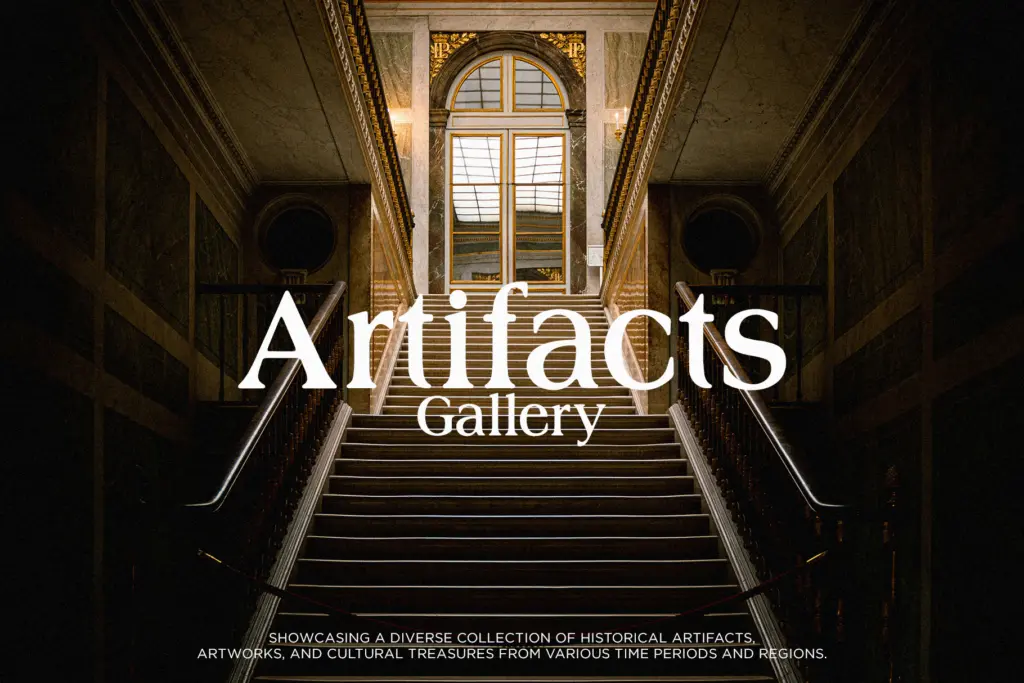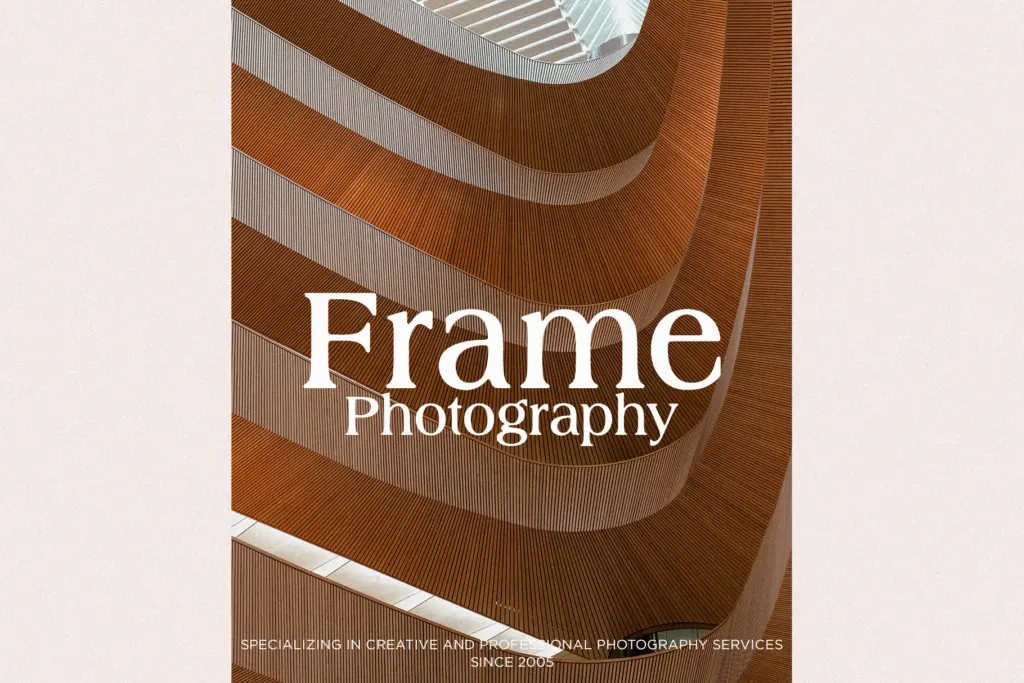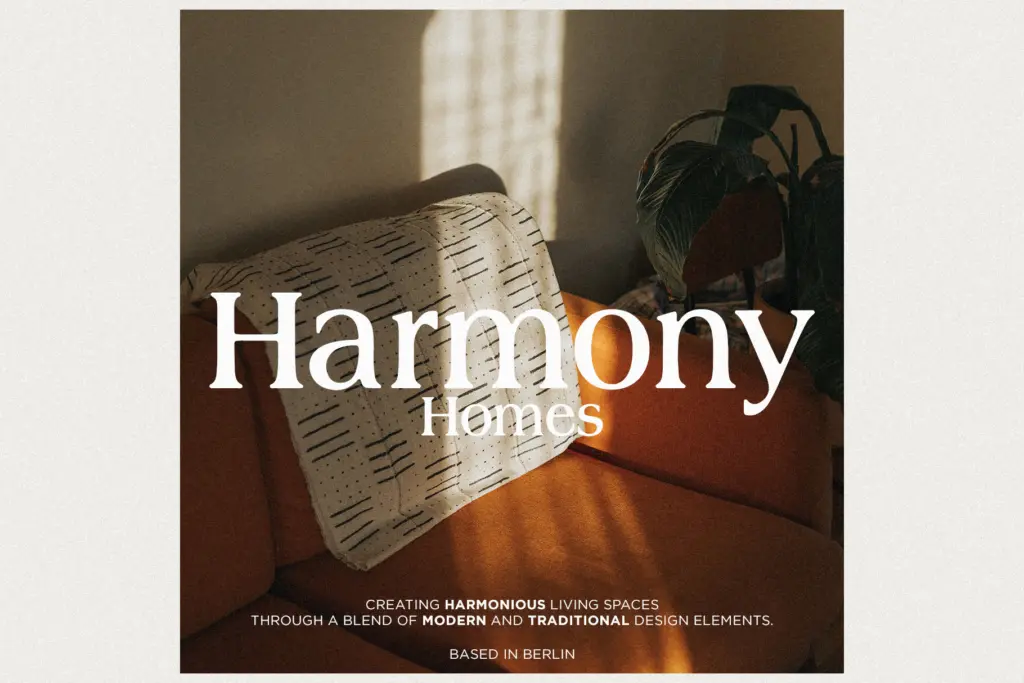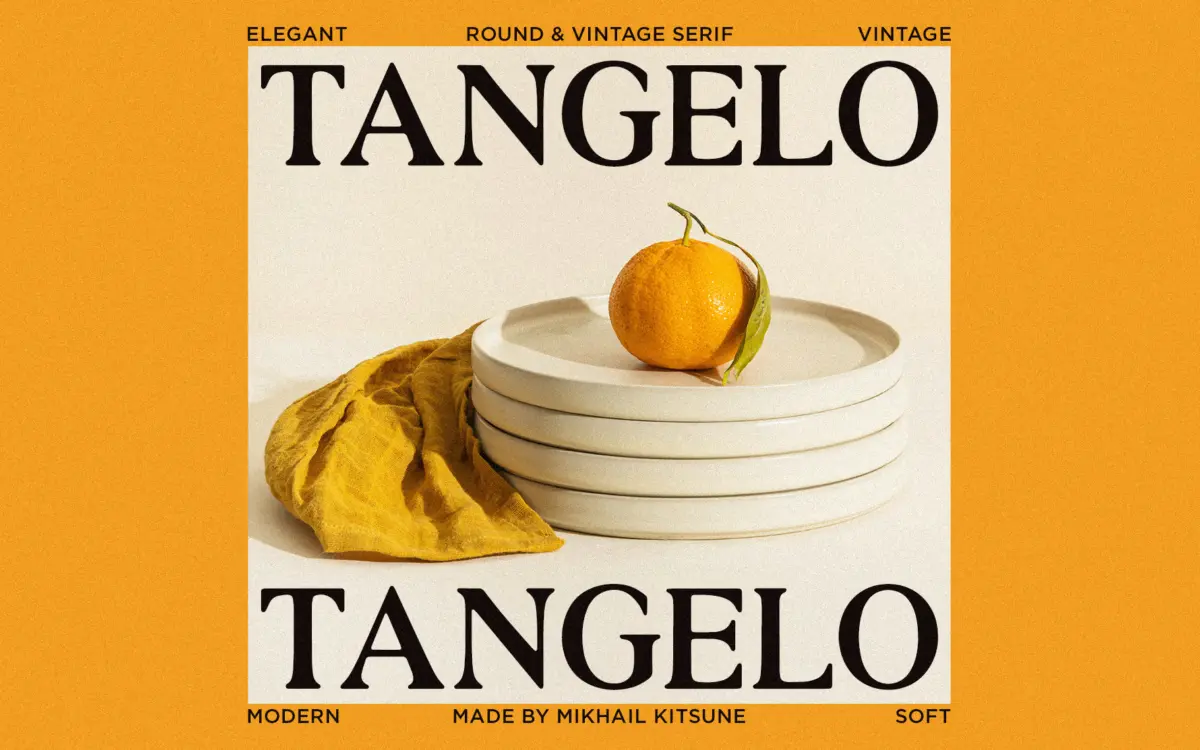
Tangelo sits in that familiar territory of rounded, softened serifs that designers reach for when they want something that reads as old but not fussy. The serifs are stubby rather than bracketed in the traditional sense, and the terminals curl inward with a bit of ball weight, which gives the letterforms a friendly, almost hand-carved feel. It’s the kind of serif that looks at home stamped on a crate or lettered on a badge rather than set in a flowing paragraph.
The contrast is low to moderate, and the strokes stay fairly even in width, which keeps the face from feeling delicate. What stands out is the rounding at the joins — bowls, arms and serif ends all seem to have had their corners sanded down, so the overall texture is soft even where the structure underneath is fairly conventional. It’s a vintage reference filtered through a slightly cartoonish hand, closer to packaging lettering from mid-century advertising than to a book serif.
The set covers uppercase and lowercase letters, numerals, punctuation and symbols, with multilingual support extending its reach beyond a single language market. Basic ligatures are included, which help smooth over a few of the more awkward letter collisions that round serifs tend to produce, particularly around ascenders and descenders that want to bump into neighbouring bowls. With over 250 glyphs total, there’s enough here to cover most short-form Latin-script jobs without needing to hunt for missing characters.
What isn’t present is any indication of multiple weights or an italic companion — this appears to be a single-style release, which matters for how you plan to use it. There’s also no stylistic alternate set mentioned, so what you see in the specimen is largely what you get across the alphabet: consistent, but without much room to vary the texture within a single piece of design.
Tangelo is built for short bursts of text rather than continuous reading. Logotypes, badge lockups, product labels and packaging headlines are the obvious targets, and the rounded serif treatment will read well on anything that wants a nostalgic, handmade signal — think small-batch food packaging, craft branding, or retro-themed event material. It also has a place in editorial headlines where a single distinctive display line is needed above a plainer body face.
At smaller sizes the rounding starts to soften the letterforms into each other, so this isn’t a font for setting paragraphs, captions or anything below display size. It’s also worth pairing it with a quieter, more neutral typeface for supporting text, since Tangelo’s personality is loud enough that it doesn’t want competition from another characterful serif nearby. Used within its lane — short words, generous size, plenty of space — it does its job cleanly and without pretension.
- The rounded terminals give it a distinctive, hand-carved vintage character without feeling fragile.
- Basic ligatures smooth over awkward collisions common in rounded serif designs.
- Multilingual support and a generous glyph count make it usable beyond a single market.
- No additional weights or italic, so there's little room to build variety within one design.
- The rounding softens legibility at smaller sizes, ruling out body text or dense captions.
Tangelo is a solid single-style rounded serif aimed squarely at logos, badges and packaging headlines. It has a clear, consistent personality but limited range once you move past short display settings.